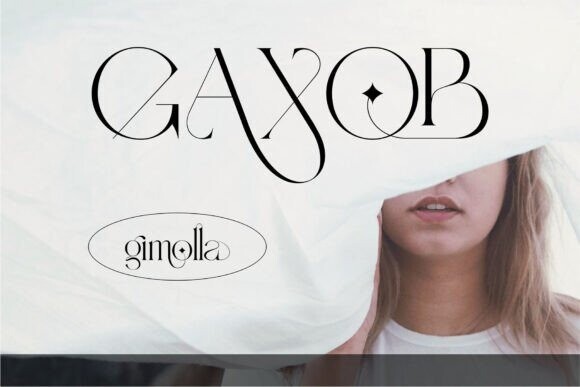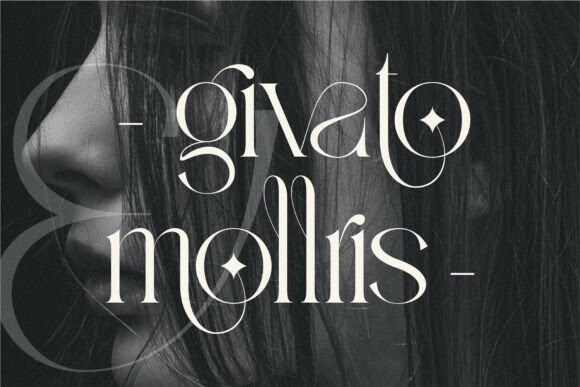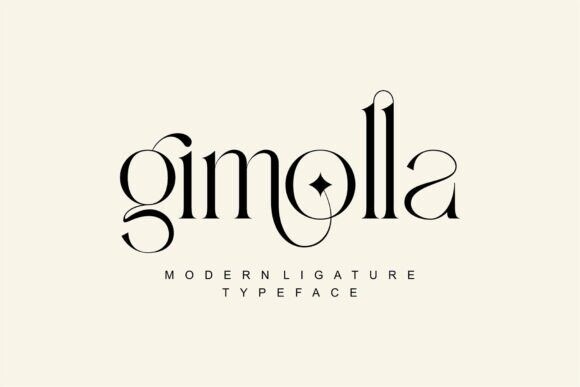
Gimolla Font
Designer: Design Joo
Gimolla Font is an elegant serif font that combines classic style with modern flair. It features graceful, flowing lines and a sophisticated appearance, making it perfect for designs that need a touch of elegance. Whether used for headings, invitations, or branding, Grintte adds a refined look to any project.